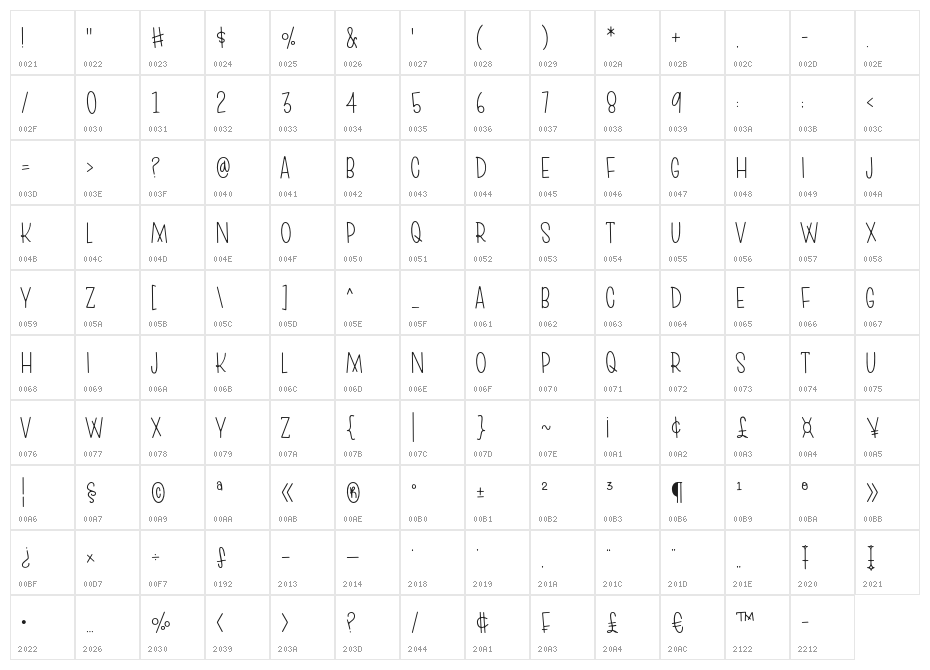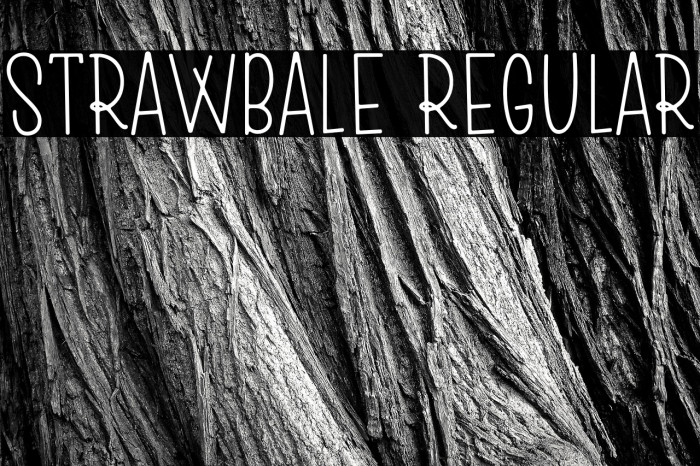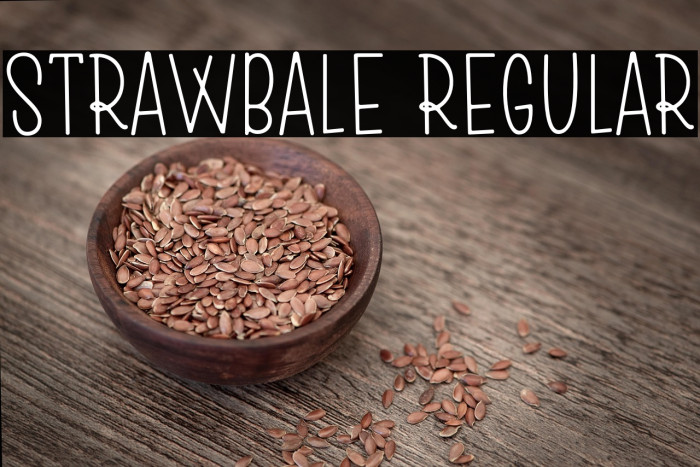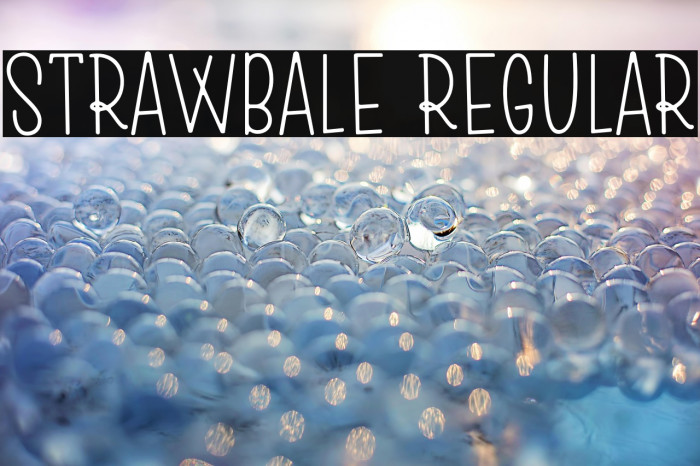
Strawbale Regular Font
Strawbale Regular Description
This font features a playful and informal handwritten style, characterized by its slightly irregular and whimsical letterforms. The strokes are consistent in thickness, giving it a uniform appearance, while the slight slant and uneven baseline add a touch of casual charm. The font maintains legibility with clear, distinct characters, making it suitable for a variety of creative applications. Its friendly and approachable aesthetic is perfect for projects that require a personal touch.
| Overall Style | Casual |
| Use Case | Headlines, Informal text, Creative projects |
| Proposed Projects | Greeting cards, children's books, personal blogs, and creative posters. |